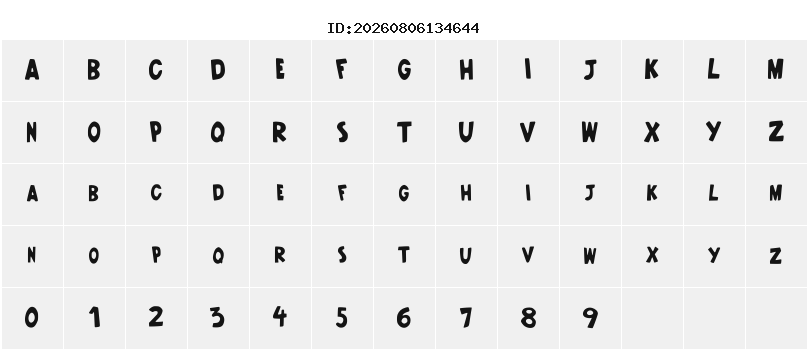
• Font Name: Open Season
About Open Season.ttf
Open Season.ttf is a modern, elegant sans-serif font designed for ultimate readability and visual harmony. Perfect for branding, headlines, web design, and print materials.